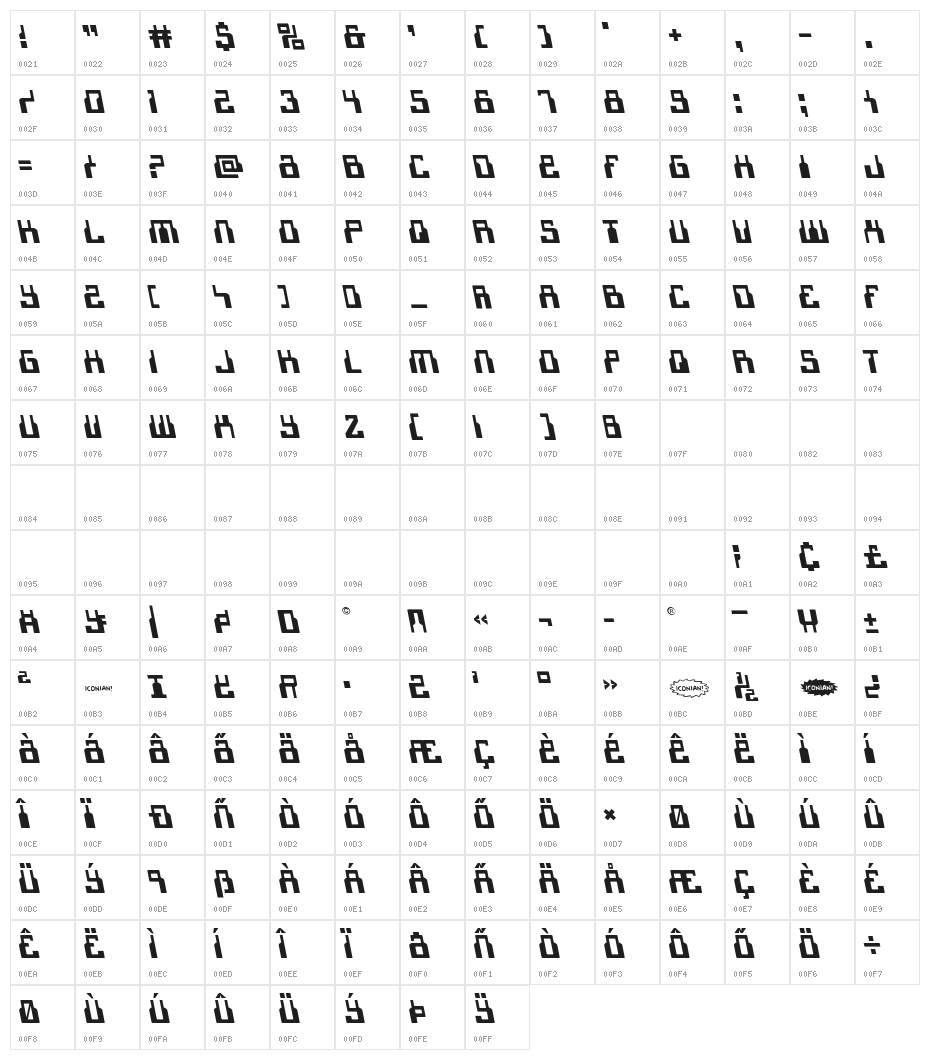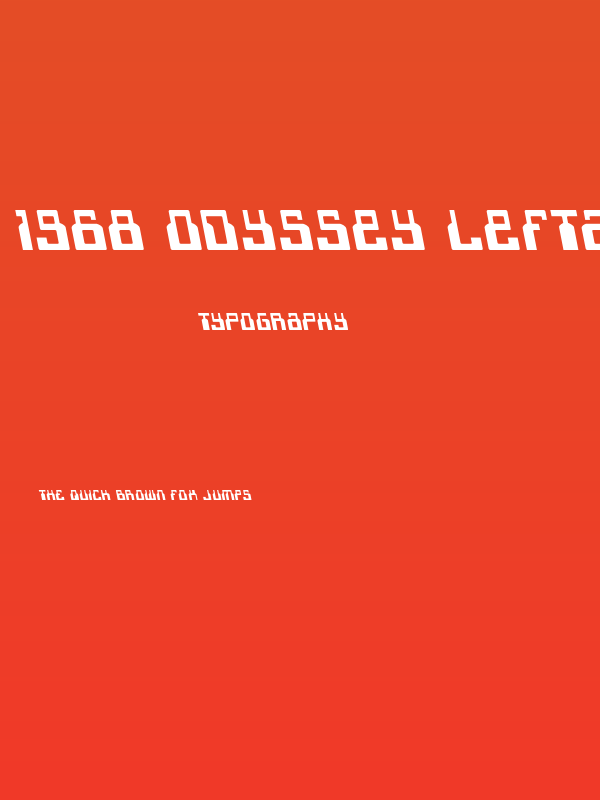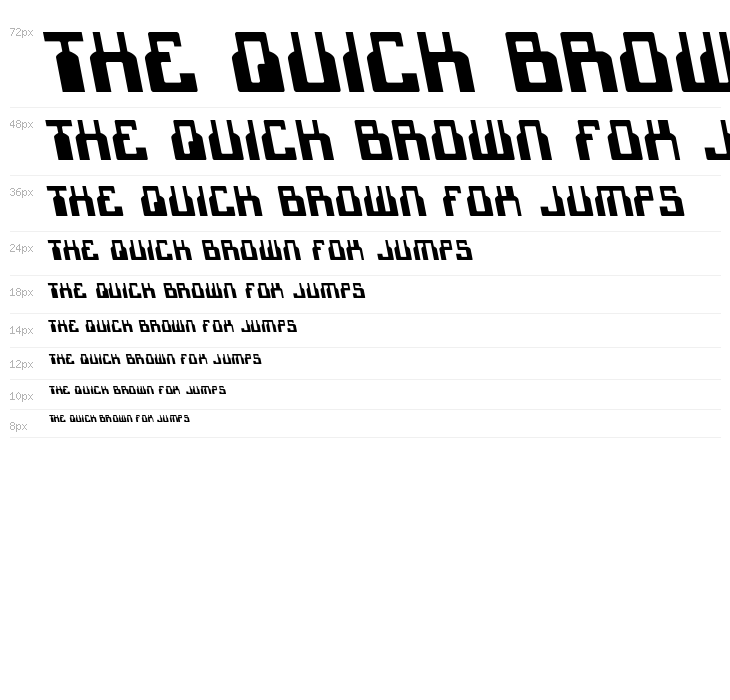
1968 Odyssey Leftalic Font
1968 Odyssey Leftalic Description
This font features a bold, futuristic design with a distinct geometric structure. The characters are slightly slanted, giving a dynamic and forward-moving appearance. The angular shapes and sharp edges contribute to a modern, tech-inspired aesthetic. The uppercase and lowercase letters maintain a consistent style, with uniform stroke widths and a blocky form. The numerals and special characters follow the same design principles, ensuring a cohesive look across all elements. The overall style is reminiscent of retro-futuristic themes, making it suitable for projects that require a bold and innovative visual impact.